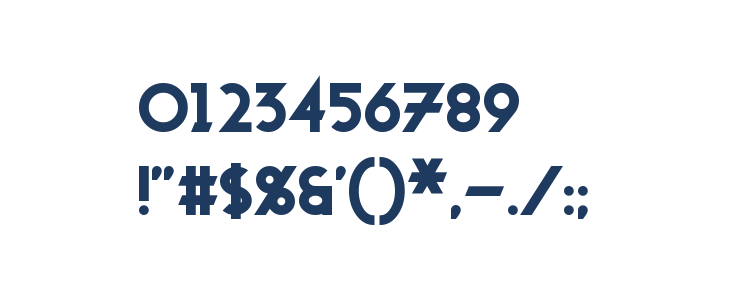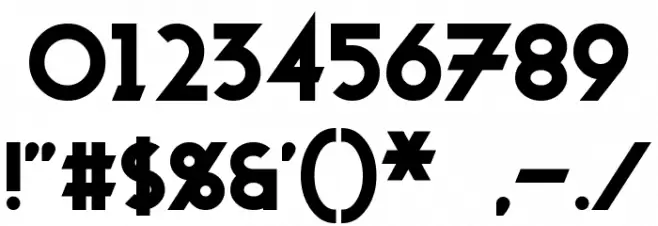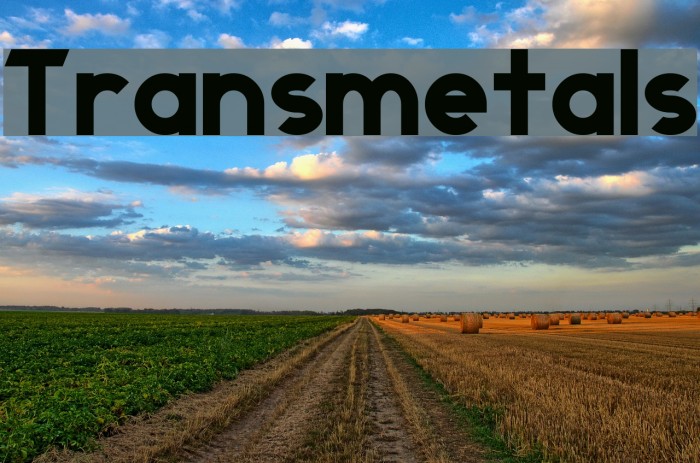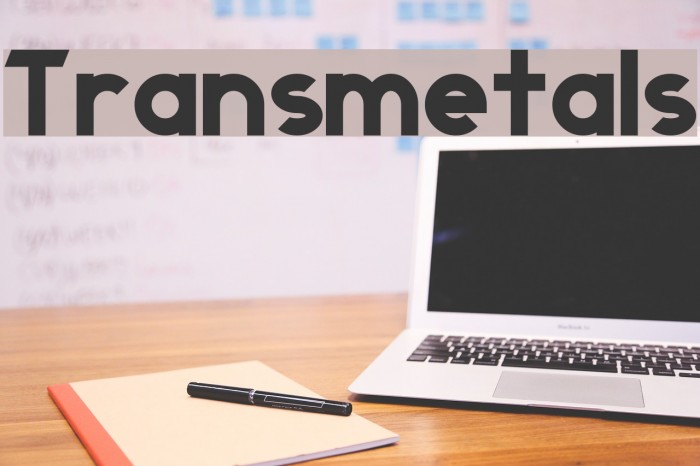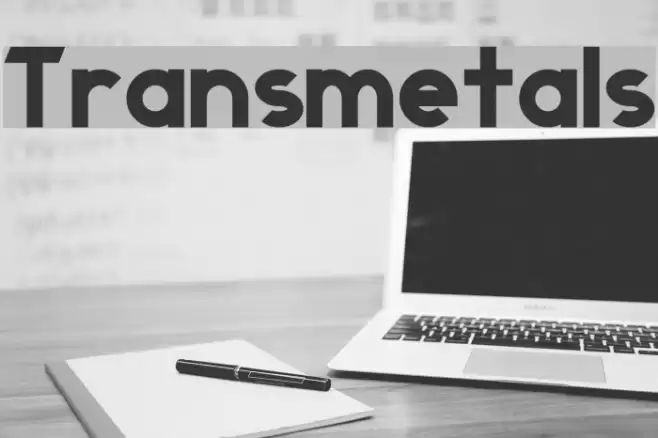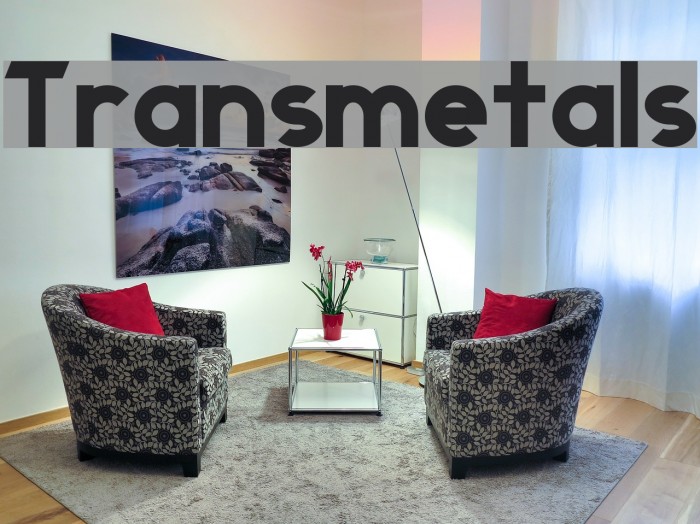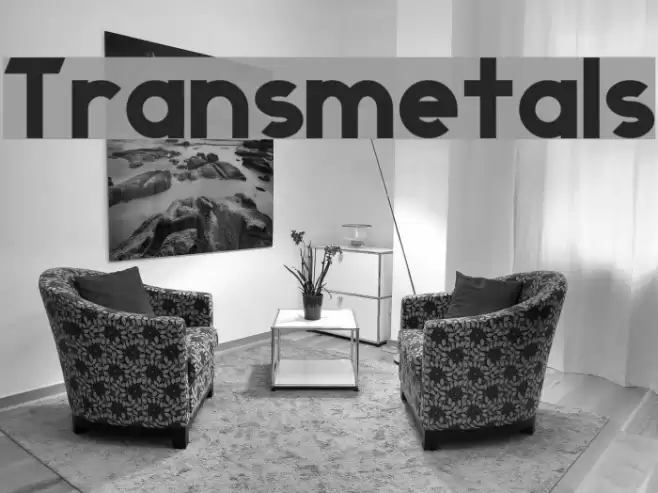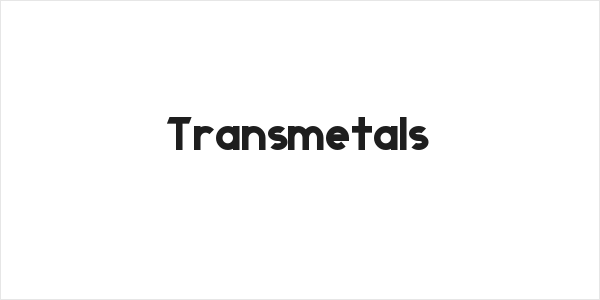
Transmetals Font
Transmetals Description
This font features a bold and geometric design, characterized by sharp angles and clean lines. The uppercase letters exhibit a strong presence with a modern aesthetic, while the lowercase letters maintain a consistent style that complements the uppercase. The numbers are equally bold, ensuring readability and impact. Special characters are designed with the same attention to detail, making them stand out. Overall, the font conveys a sense of strength and modernity, suitable for various design applications.